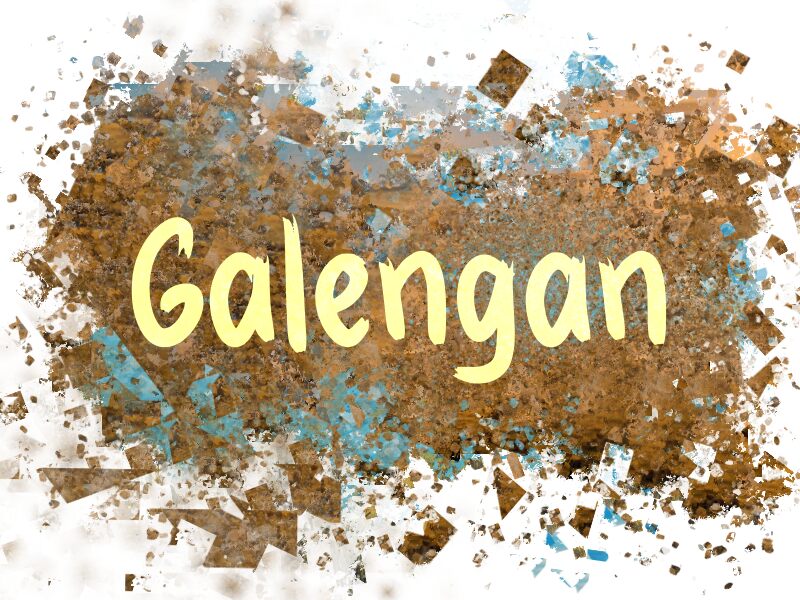
Galengan
Galengan font, crafted by wep, exudes a vibrant and dynamic brush style that captivates the eye with its expressive strokes. The bold, sweeping lines create an energetic flow, while the playful curves lend an informal charm that invites engagement. This font stands out with a delightful contrast between its thick and whimsical accents, giving it a lively presence on any page.
Ideal for invitations, branding, or promotional materials, Galengan effortlessly conveys creativity and warmth. Its distinct character makes it perfect for projects that seek to evoke emotions and foster connection. Whether adorning posters or enhancing social media graphics, this font brings an unmistakable flair that resonates across various design contexts. Embrace Galengan to make your message feel personal and memorable.